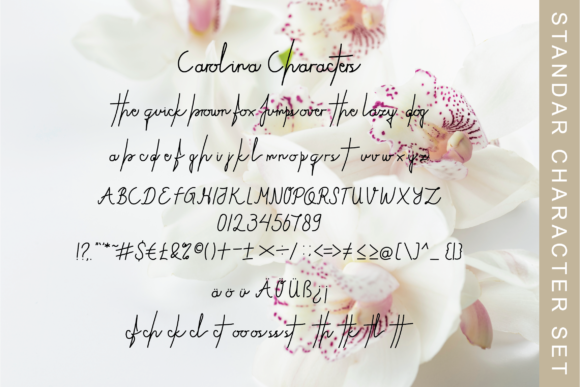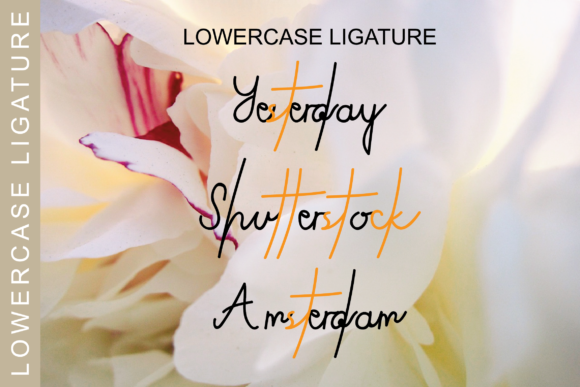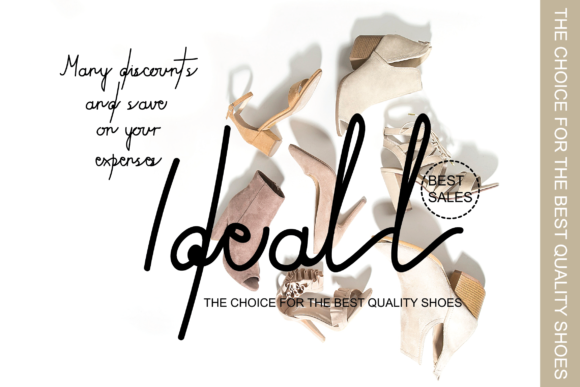
Introduction to Mellanis Font
Remember that moment when you’re brainstorming ideas for your next creative project and you stumble upon the perfect font? It’s like the puzzle pieces finally fall into place, and your entire design vision comes together in a beautiful way. For many designers, that moment happens with the Mellanis Font. This stunning monoline script font has been a game-changer for creative projects, and for good reason.
With its natural hand-drawn look and high-quality design, the Mellanis Font is a valuable resource for designers looking to add a touch of elegance and sophistication to their work. Whether you’re working on branding projects, logos, or social media posts, this font is sure to make a lasting impression. And the best part? It’s available for free download, making it an accessible and affordable option for designers of all levels.
- Designed with a unique aesthetic, making it an ideal choice for designers looking to add a touch of elegance to their work
Honest Review: Mellanis Font
I recently came across the Mellanis Font, and I’m excited to share my thoughts on this design resource. The Mellanis Font is a beautiful, high-quality font that can elevate any creative project.
- Stylish and modern design: The Mellanis Font has a unique, elegant style that makes it perfect for a variety of creative projects.
- High-quality font files: The font files are crisp and clear, making it ideal for both digital and print projects.
- Transparent background: This feature allows for seamless integration with images and other design elements.
- Limited character set: The font only includes a basic set of characters, which may not be sufficient for complex projects.
- No bold or italic variations: While the font is elegant, it would be beneficial to have bold and italic variations for added versatility.
Overall, the Mellanis Font is a solid addition to any design library. While it may have some limitations, its high-quality design and transparent background make it a great resource for creative projects. If you’re looking for a stylish font for your next project, the Mellanis Font is definitely worth considering.
Mellanis Font
The Mellanis Font is a high-quality, versatile design resource ideal for various creative projects. With a transparent background, it offers limitless design possibilities.
The Mellanis Font is available in high-resolution formats, making it ideal for use in print design and other high-quality applications. The font’s high resolution ensures that the text remains crisp and clear, even at large sizes. This is particularly important for designers working on projects that require a high level of detail and precision, such as business cards, brochures, and posters.